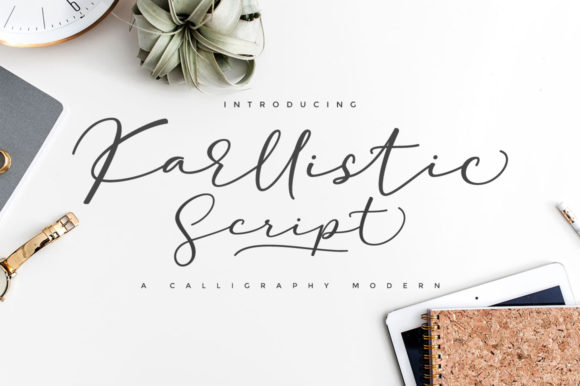
Indulge in the enchanting world of Karllistic Script, a calligraphic masterpiece that dances across your screen with grace and allure. This exquisite script font, lovingly crafted by the skilled hands at Cooldesignlab, is more than just a collection of characters; it's a gateway to a realm of limitless creativity, where your designs will shimmer with an ethereal glow.
The very essence of Karllistic Script lies in its captivating swashes, those sweeping flourishes that add a touch of drama and elegance to every letterform. With each stroke, you'll paint a tale of timeless beauty, evoking the romance of handwritten love letters and the grandeur of ancient scrolls. Whether you're crafting logos, invitations, or social media posts, Karllistic Script will transform your words into works of art.
This enchanting script is the perfect choice for those who seek to add a touch of sophistication and style to their designs. Its versatility knows no bounds, lending itself seamlessly to a wide range of projects, from wedding invitations to magazine covers and beyond. Imagine the allure of your brand logo, adorned with the elegant curves of Karllistic Script, or the impact of a social media post that captivates your audience with its intricate beauty.
With Karllistic Script, you'll unlock a world of endless possibilities, where your creativity will soar to new heights. Its timeless appeal and undeniable charm will elevate your designs, leaving a lasting impression on all who behold them. Join the ranks of discerning designers who have embraced the magic of Karllistic Script and experience the transformative power of true artistry.